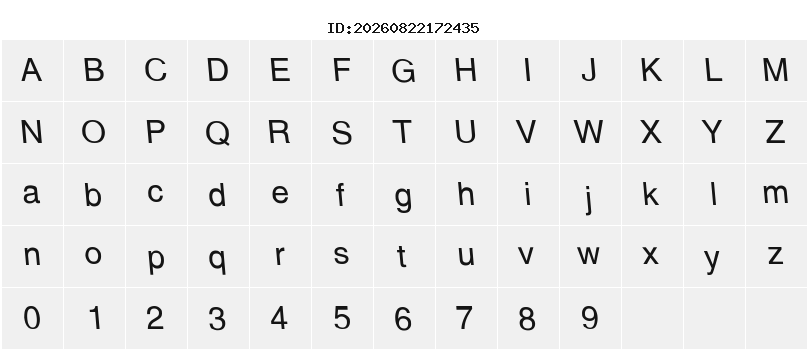
SchnellerMedium Preview
• Font Name: SchnellerMedium
• Full Font Name: SchnellerMedium
• PostScript Name: SchnellerMedium
About SchnellerMedium.ttf
SchnellerMedium.ttf is a modern, elegant sans-serif font designed for ultimate readability and visual harmony. Perfect for branding, headlines, web design, and print materials.